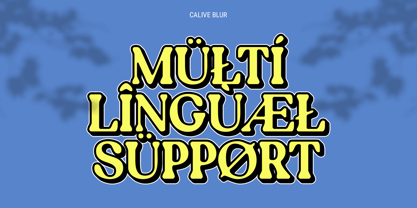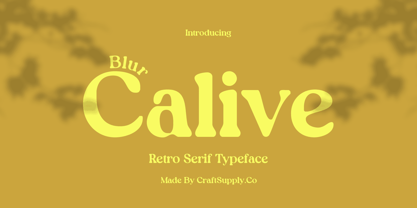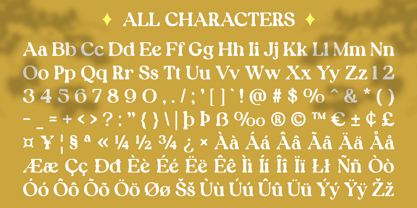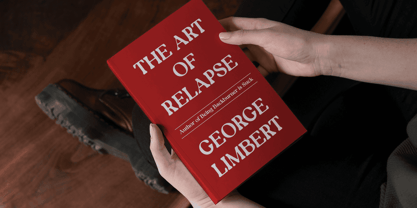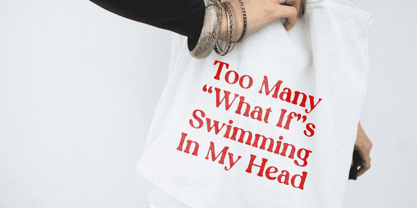
Calive Blur
by Craft Supply Co
The Calive Blur Font Family was designed by Trio Nazzar Saputra, Wahyu Hadi Yuana and published by Craft Supply Co. Calive Blur contains 2 styles and family package options. More about this family
Calive Blur: Retro Serif Font with Blur Effect
Classic Yet Modern
Calive Blur is a retro serif font with a blur effect, perfect for designs aiming to create a classic yet modern and attractive feel. Its vintage-inspired design adds a touch of nostalgia to any project, ensuring your message is both timeless and contemporary.
Ideal for Various Designs
Perfect for poster design, branding, packaging, and editorial design, Calive Blur ensures your creations stand out with a classic yet fresh touch. Its blur effect enhances the visual appeal, making it an excellent choice for designs that prioritize classic elegance with a modern twist.
Versatile and Timeless
Despite its retro aesthetic, Calive Blur remains versatile and timeless. Its serif format makes it suitable for a wide range of projects where a font that combines classic elements with a modern flair is essential for making a statement.
Perfect for Adding a Classic Touch
Calive Blur is ideal for projects requiring a font with a classic touch. Whether you’re designing a poster, branding, or packaging, this font will undoubtedly add a distinct and memorable element to your designs.
Designers: Trio Nazzar Saputra, Wahyu Hadi Yuana
Foundry: Craft Supply Co